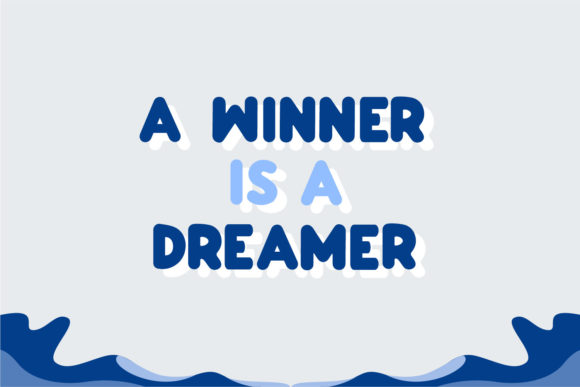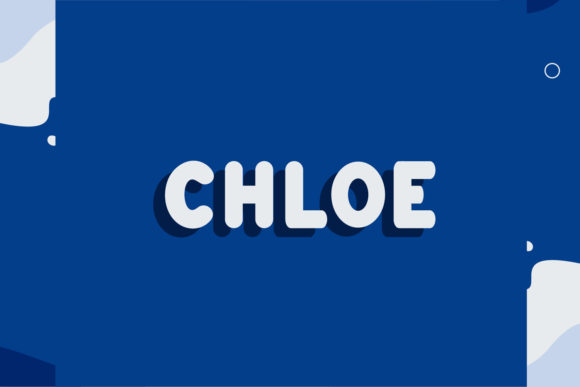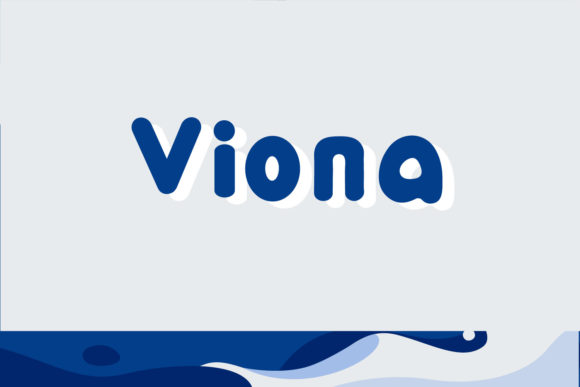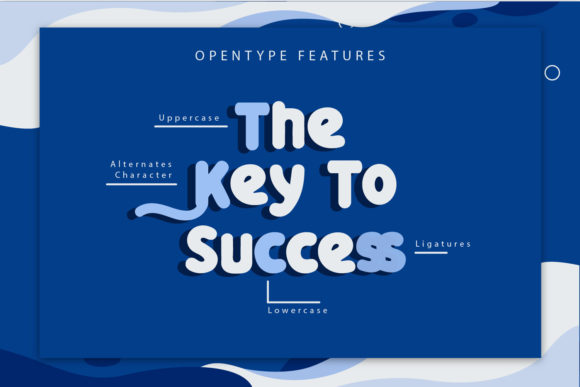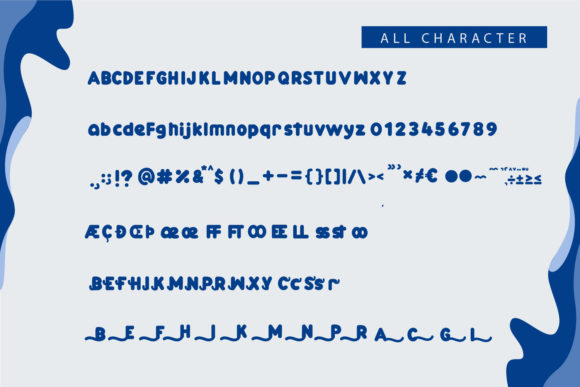
Introduction to Milk Buns Font
Have you ever found yourself in a creative rut, staring at a blank canvas or screen, and suddenly a burst of inspiration hits you? For designers, that moment can be a game-changer. It’s the moment when everything comes together, and you know exactly what you need to bring your vision to life. For me, that moment happened when I stumbled upon the Milk Buns Font – a thick lettered and friendly display font that’s perfect for adding a touch of trendiness to any creative project.
The Milk Buns Font is more than just a design resource; it’s a valuable tool for designers looking to elevate their work. With its PUA encoded features, accessing all glyphs and swashes is a breeze, making it easy to create high-quality designs with a transparent background that pops. Whether you’re working on a digital project, crafting a greeting card, or creating a presentation, this font is sure to be a crowd-pleaser.
Key Features of Milk Buns Font
- Unique, handwritten design style with a touch of whimsy, perfect for creative projects.
Honest Review: Milk Buns Font
The Milk Buns Font has been a game-changer for my creative projects. I’ve been using it for all sorts of designs, from social media graphics to wedding invitations. The high-quality typography has really elevated my work and given it a professional touch.
- ✨ Customizable: The Milk Buns Font offers a wide range of styles and customizations, making it perfect for designers who want to add a personal touch to their work.
- ✨ Versatile: Whether you’re working on a modern or vintage-themed design, the Milk Buns Font has got you covered.
One thing to note is that the transparent background option can be a bit finicky to work with. Sometimes it doesn’t quite align as expected, but this is a minor issue that can be easily overcome with a little patience and experimentation.
Milk Buns Font is ideal for use in digital designs, such as social media graphics, website headers, and mobile app icons. It’s also suitable for print designs, like business cards, flyers, and brochures. The font’s high quality and transparent background make it a versatile design resource for any creative project.